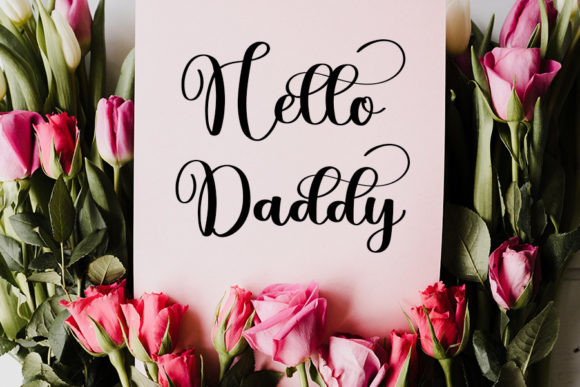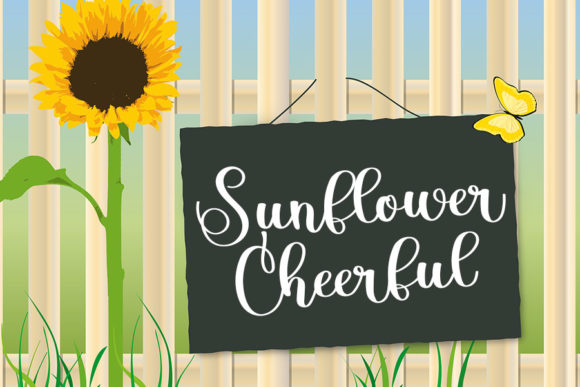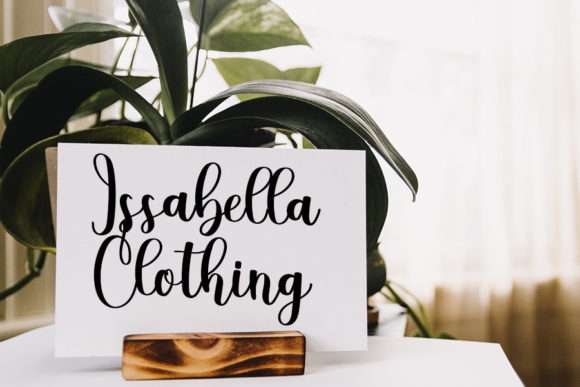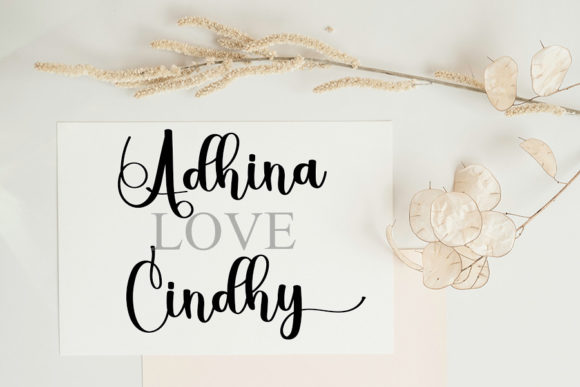
The Enchanting Butterfly Font: A Designer’s Delight
I’ll never forget the time I was working on a wedding invitation project, and my client asked me to create something that would make their guests swoon. I was on a tight deadline, and my mind was a blank – until I stumbled upon the Butterfly Font. Its flowing, graceful script instantly captivated me, and I knew I had found the perfect fit. In this article, I’ll share my love for this stunning font, its features, and how to make the most of it in your designs.
An Honest Review of Butterfly Font
- ✨ Elegant and sophisticated design, perfect for wedding invitations, stationery, and social media posts
- ✅ Highly legible, even in smaller sizes
- 💫 Beautifully crafted with attention to detail, making it a true showstopper
- 🎨 Versatile and can be used for a variety of creative projects
While Butterfly Font is an exceptional font, there are a few things to keep in mind:
- 🤔 Some users may find the font a bit too ornate for certain projects, such as body text or captions
- ⚠️ As with any script font, it may not be the best choice for very small font sizes or low-resolution images
A Practical Guide to Using Butterfly Font
- Experiment with OpenType features, such as ligatures and stylistic alternates, to add personality to your text
Using Butterfly Font in Adobe Photoshop and Illustrator
- Explore the font’s glyphs and OpenType features, such as swashes and ornaments, to add creative touches
Butterfly Font was designed by a team of skilled typographers who wanted to create a font that would evoke the beauty and elegance of nature. Inspired by the delicate wings of butterflies, they crafted a font that is both sophisticated and playful. With its intricate details and flowing lines, Butterfly Font is sure to captivate your audience.
Q: What type of projects is Butterfly Font best suited for?
A: Butterfly Font is perfect for wedding invitations, stationery, social media posts, and any other project that requires a touch of elegance and sophistication.